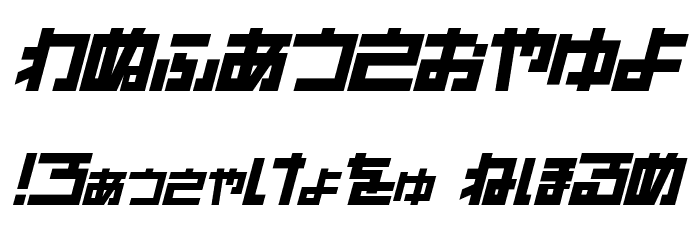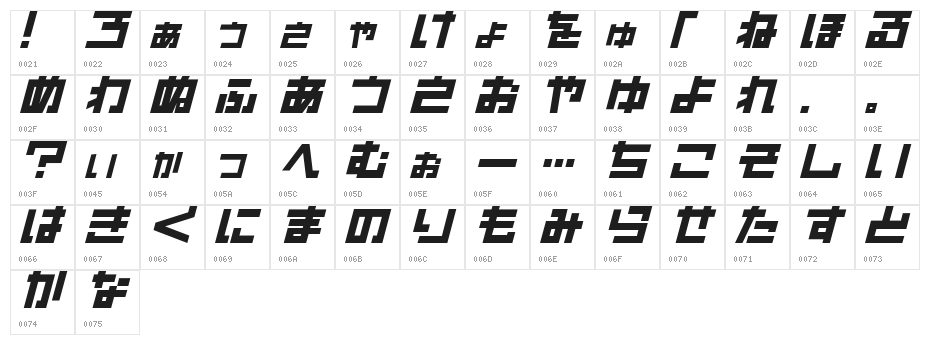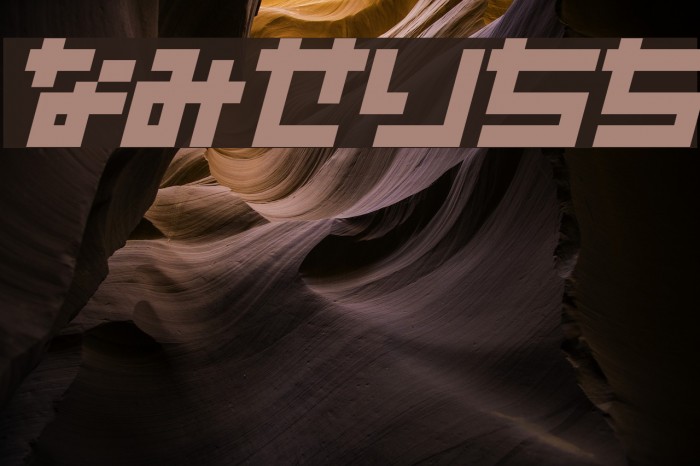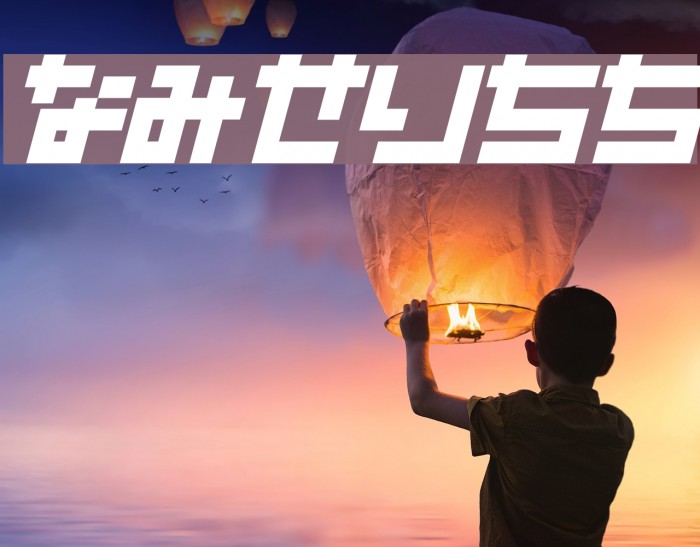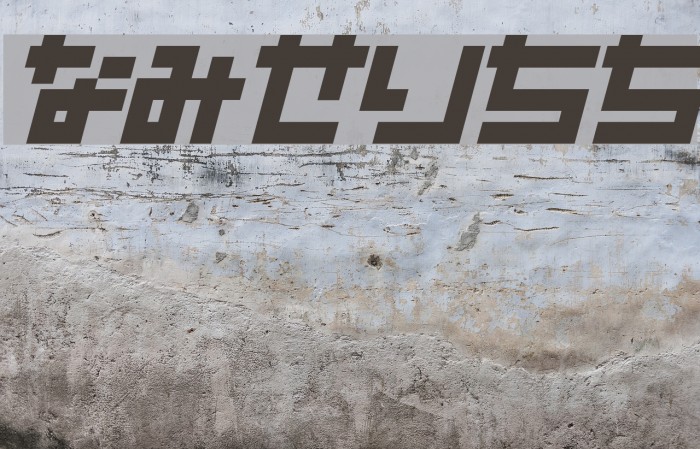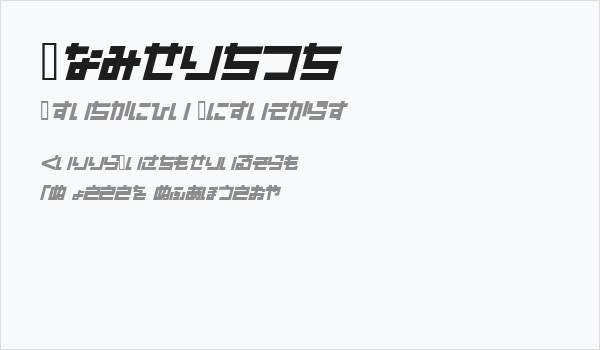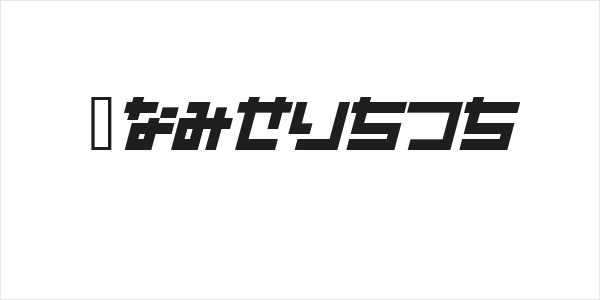
Sunplaza Font
Sunplaza Description
This font features a bold and dynamic style with a strong geometric influence. The characters are angular and sharp, giving them a futuristic and modern appearance. The strokes are thick and consistent, providing a sense of stability and strength. The font has a slightly condensed width, which adds to its compact and efficient look. The character spacing is tight, enhancing the boldness and impact of the text. This font is well-suited for attention-grabbing headlines and titles, where a strong visual presence is desired. Its unique style makes it ideal for projects that require a modern and edgy aesthetic.